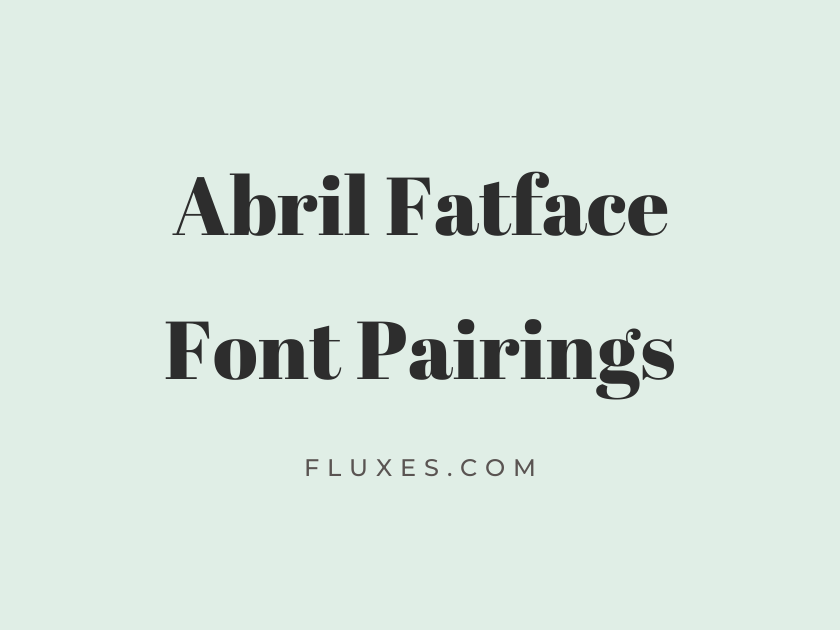
10 Best Font Pairings for Abril Fatface
Abril Fatface is a high-contrast display serif built for headlines: fat vertical strokes, hairline thins, and a theatrical presence that demands restraint from whatever sits beneath it. The pairings below lean on that principle, giving Abril Fatface room to perform while a calmer, well-proportioned text face carries the reading load. These combinations work across editorial design, invitations, packaging, and any project searching for Google Fonts pairings with real dramatic flair.
Abril Fatface + Lato
Lato's humanist warmth and even spacing keep long paragraphs comfortable after a bold headline.
Lato’s rounded, humanist letterforms soften the shock of Abril Fatface’s heavy contrast, so the transition from headline to body feels intentional rather than jarring. Both fonts read as confident but approachable, which makes this pairing a reliable choice for lifestyle blogs and magazine-style layouts.
Abril Fatface + Open Sans
Open Sans offers a neutral, highly legible grid that lets the display face keep all the visual weight.
The neutrality of Open Sans is exactly what a face as ornamental as Abril Fatface needs underneath it; it disappears into the reading experience without competing for attention. This combination suits interfaces, reports, and editorial sites that need a strong masthead over dependable body text.
Abril Fatface + Karla
Karla's grotesque simplicity and slightly quirky details give plainspoken text a bit of personality.
Karla’s low-key geometry provides a sturdy counterweight to Abril Fatface’s theatrical curves, and the shared moderate x-height keeps the size relationship between headline and paragraph feeling balanced. It’s an easy pick for boutique branding or small business websites that want charm without fuss.
Abril Fatface + Merriweather
Merriweather's sturdy serif shapes were drawn specifically for comfortable screen reading at text sizes.
Pairing two serifs works here because Merriweather’s calm, workmanlike letterforms have none of the drama of Abril Fatface, creating contrast through weight and mood rather than through category. This is a strong option for long-form journalism or literary sites where both the headline and the text need serif warmth.
Abril Fatface + Nunito Sans
Nunito Sans keeps its rounded terminals subtle at text size, reading as friendly but unobtrusive.
Nunito Sans has just enough softness in its curves to echo Abril Fatface’s rounded bowls without ever competing with the headline’s weight. The pairing feels current and approachable, making it a favorite for startup marketing pages and product landing pages.
Abril Fatface + PT Sans
PT Sans brings a slightly condensed, no-nonsense structure that supports dense paragraphs of information.
PT Sans was designed for clarity across many contexts, and that practical DNA makes it an unfussy partner for a display face as expressive as Abril Fatface. Consider this combination for event materials, posters, and invitations where the headline needs to shout and the details need to stay legible.
Abril Fatface + Crimson Pro
Crimson Pro's book-inspired proportions give body copy a literary, well-set feel.
Crimson Pro’s restrained, text-focused design echoes the printed-book heritage that Abril Fatface itself references, giving the pair a shared sense of old-world craft even though one is loud and one is understated. It suits cookbooks, literary journals, and any brand leaning into a vintage editorial mood.
Abril Fatface + Work Sans
Work Sans stays neutral and clean at small sizes, built specifically for on-screen reading comfort.
Work Sans was engineered for interfaces and screens, so it grounds Abril Fatface’s flourish with a body face that never draws attention away from the message. This pairing is well suited to modern web design where the headline needs personality but the UI text needs to stay functional.
Abril Fatface + Mulish
Mulish is a minimal, low-contrast sans that keeps text calm beneath a busier display headline.
Mulish’s understated geometry and even rhythm act almost like a neutral canvas, letting Abril Fatface’s dramatic contrast stand out even more by comparison. It’s a dependable choice for portfolios and creative agency sites that want one strong visual gesture per page.
Abril Fatface + Vollkorn
Vollkorn's gentle, book-like serifs give paragraphs a warm, traditional texture to read.
Vollkorn was built for text-heavy German typesetting traditions, and its calm, readable serifs offset Abril Fatface’s flamboyance the way a plain frame offsets an ornate painting. This combination fits wedding stationery, literary branding, and other projects wanting a touch of old-fashioned romance.
Tips for pairing with Abril Fatface
Keep Abril Fatface for short bursts of text such as headlines, titles, or pull quotes; its heavy contrast becomes hard to read at paragraph length.
Choose body fonts with moderate x-heights and open counters so the size jump from display to text does not feel abrupt.
Limit yourself to one dramatic display face per layout; let the body font stay understated so the pairing reads as one clear hierarchy rather than a contest.